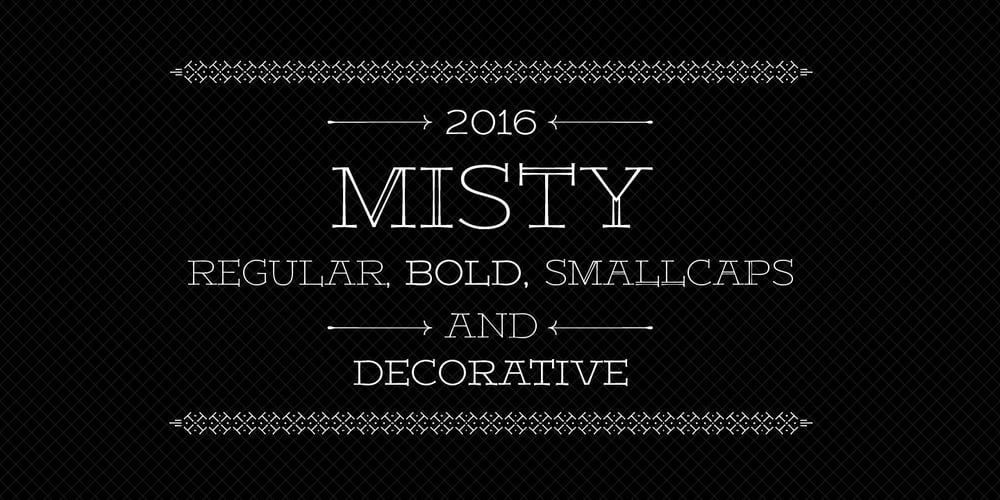
Misty Font Family was designed by Valery Zaveryaev and published by Gaslight. Misty contains 4 styles and family package options. Misty – a two weight wild west style serif with numerous alternatives, swashes and irregular alternatives for numerous characters in SC style. Interchanging regular characters with alternatives and vice versa, it allow you to do slightly strange inscriptions. Plus deco style.